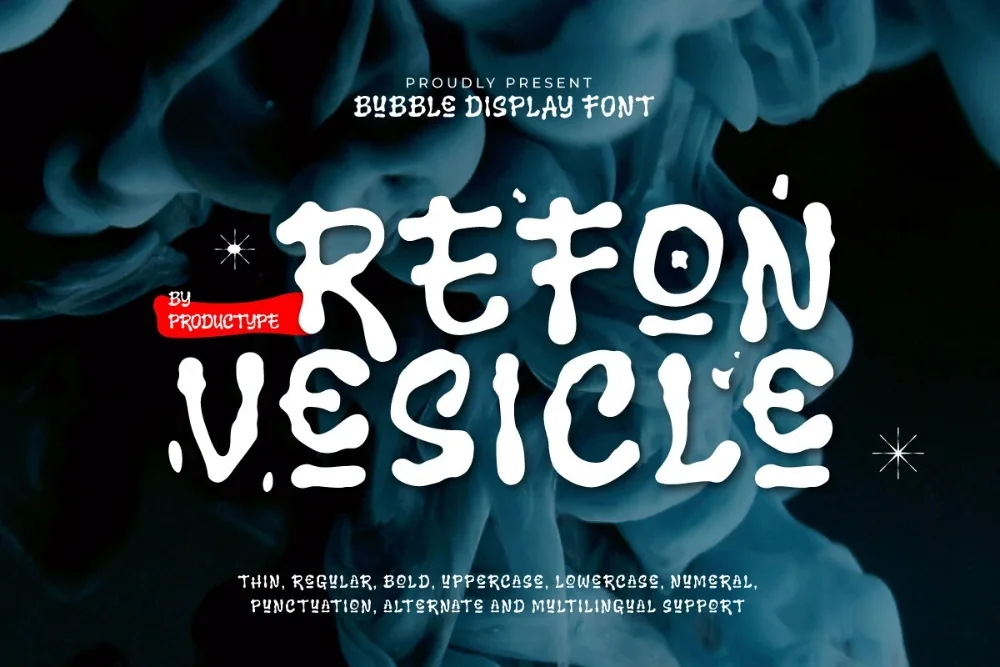
Fat Cap Bubble Graffiti Font
A fat cap graffiti font lives or dies on how it behaves at real sizes, and this one has been tested at both extremes. Wide, low-pressure strokes that spread the way a fat cap sprays. Rounder and heavier than a standard bubble alphabet.
Curves are exaggerated and the joins between strokes are filled in rather than pinched, producing chunky, almost cushioned letterforms. Counters stay open enough for a second colour inside.
Strong on tote bags, hoodie backs, mural mockups, and any print big enough to show off the volume.
It reverses well out of dark backgrounds, which is worth remembering if the artwork is heading for a black shirt or a night-time photograph.